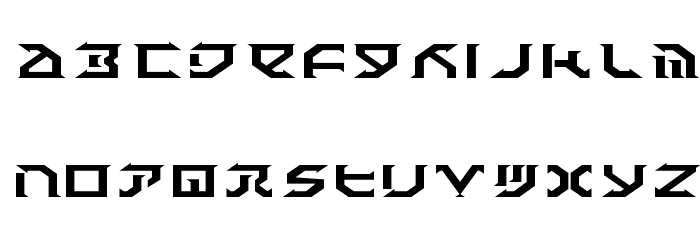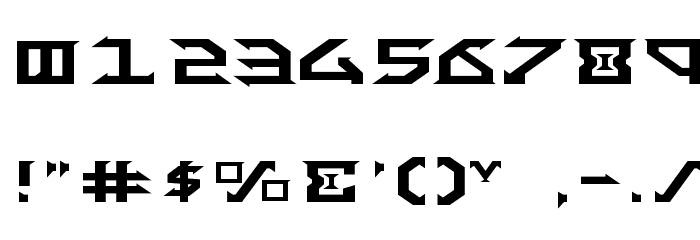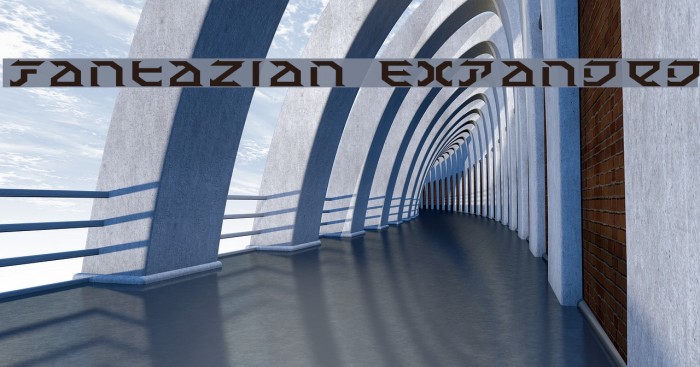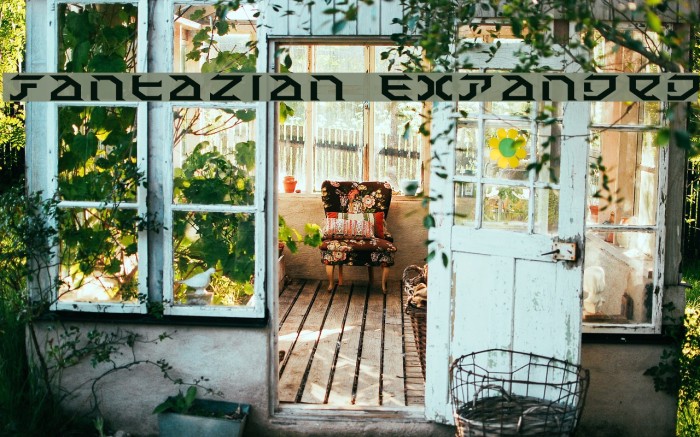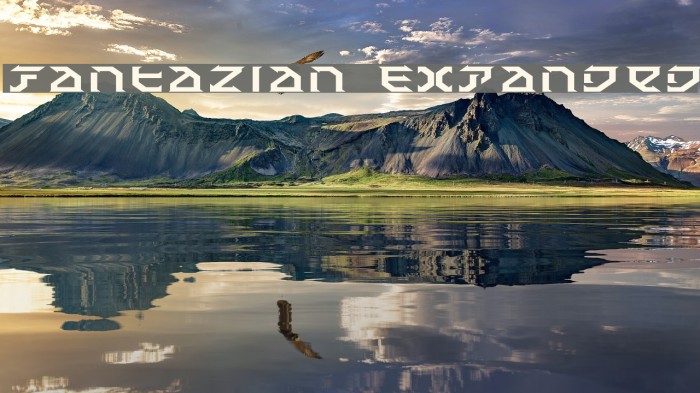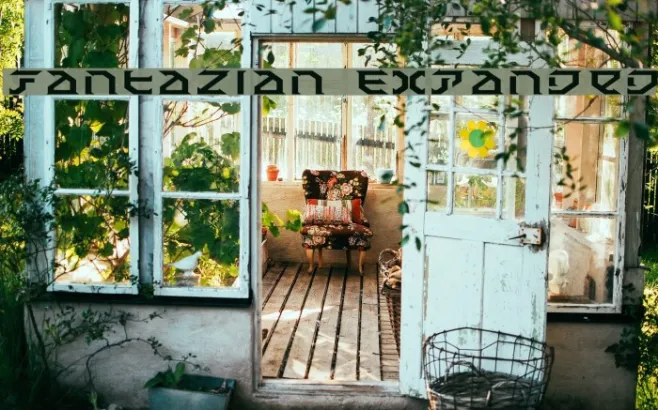
Fantazian Expanded Font
This font features a bold, futuristic design with sharp, angular edges and a geometric structure. The characters are uniquely stylized, with a distinct emphasis on diagonal lines and cut-out sections that give it a dynamic and edgy appearance. The uppercase and lowercase letters maintain a consistent style, creating a cohesive look across the alphabet. Numbers and special characters follow the same design principles, ensuring uniformity throughout. This font's striking appearance makes it ideal for projects that require a modern and impactful visual statement.
A bold, futuristic font with sharp, angular edges and geometric styling.
- Proposed Projects: Ideal for sci-fi themed designs, video game graphics, tech branding, and modern posters.
- Overall Style: Futuristic